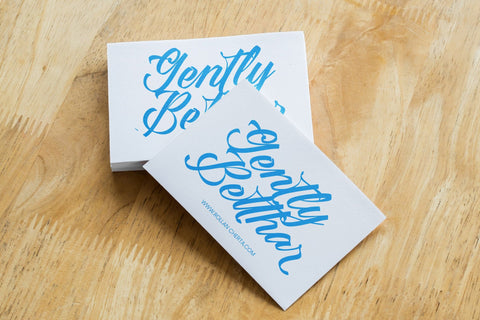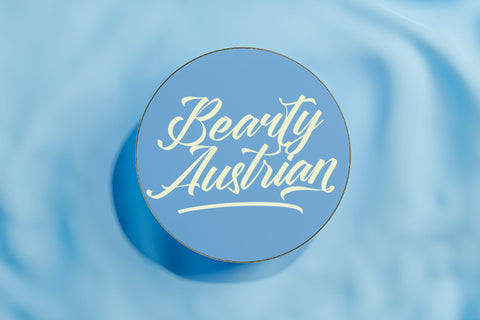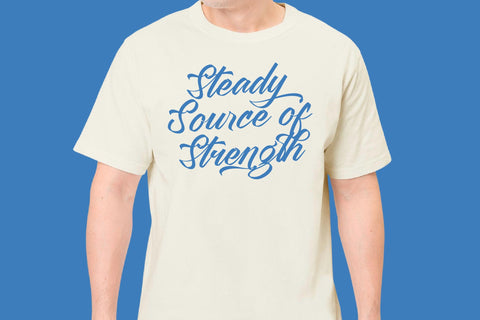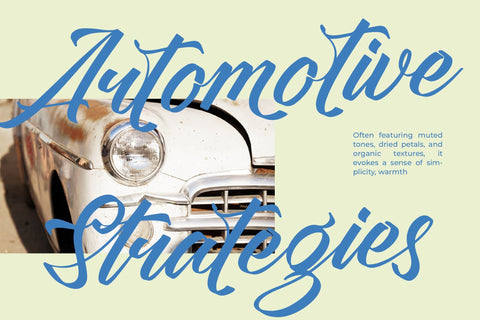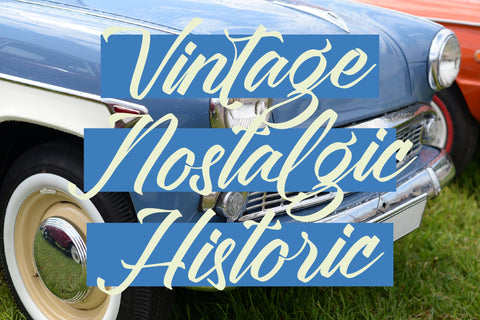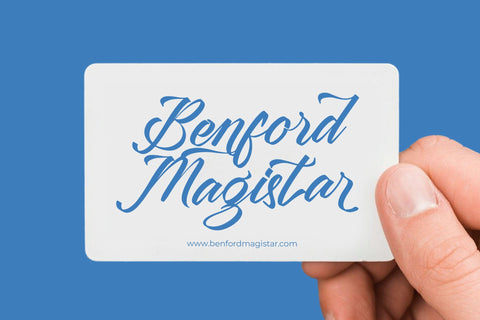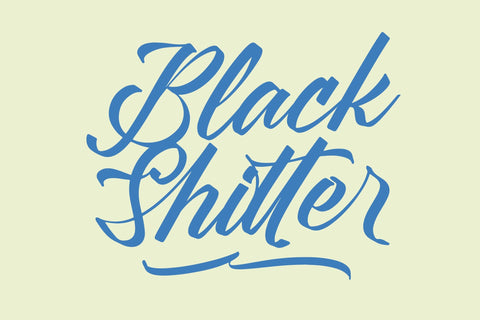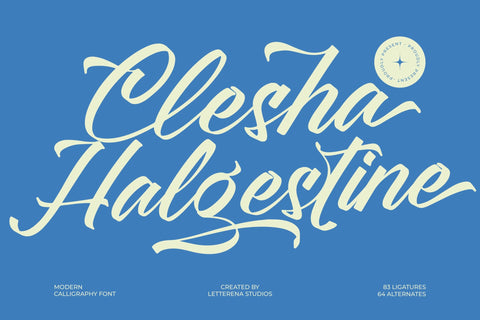
Clesha Halgestine - Modern Calligraphy Font
Clesha Halgestine - Modern Calligraphy Font , from Letterena, is a Luxury Script font, suitable for any projects such as: logos, branding projects, homeware designs, product packaging, mugs, quotes, posters, shopping bags, t-shirts, book covers, name card, invitation cards, greeting cards, label, photography, watermark, special events, and all your other luxury and beautiful projects that need a Luxury Script taste.
- 83 Ligature 64 Alternate & Swashes